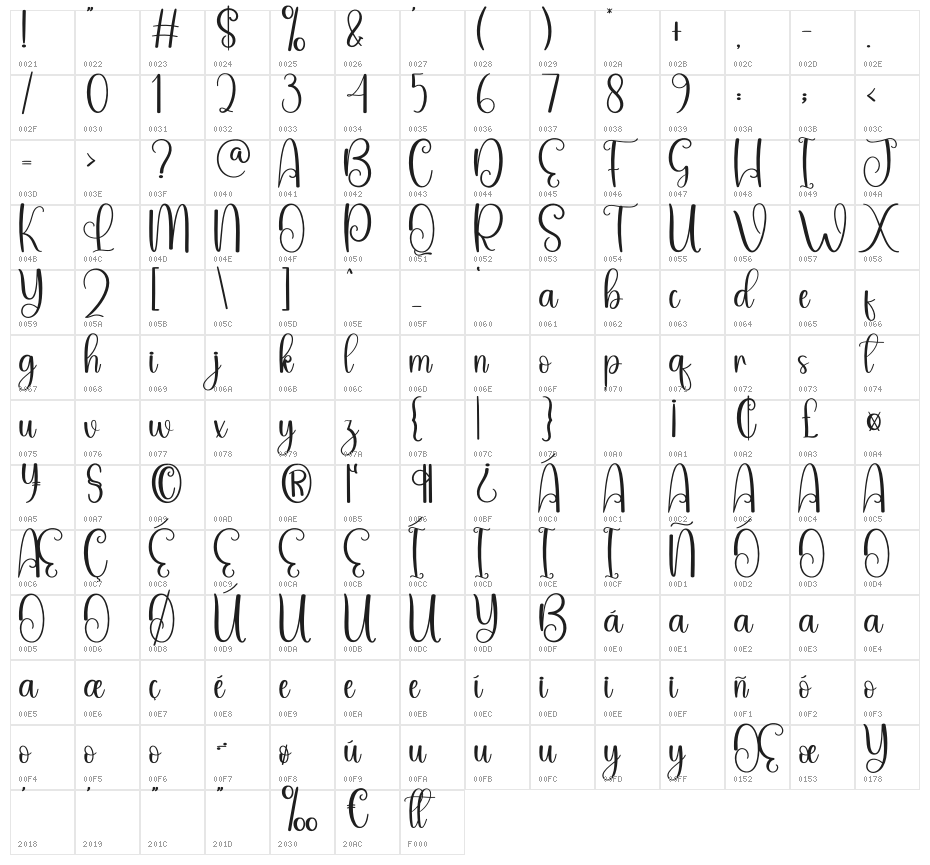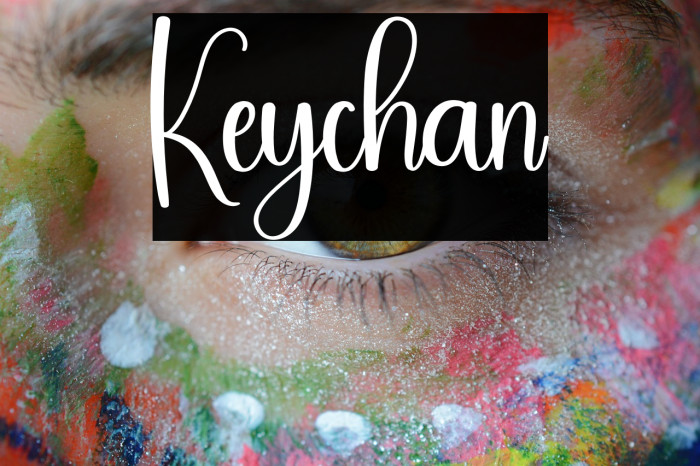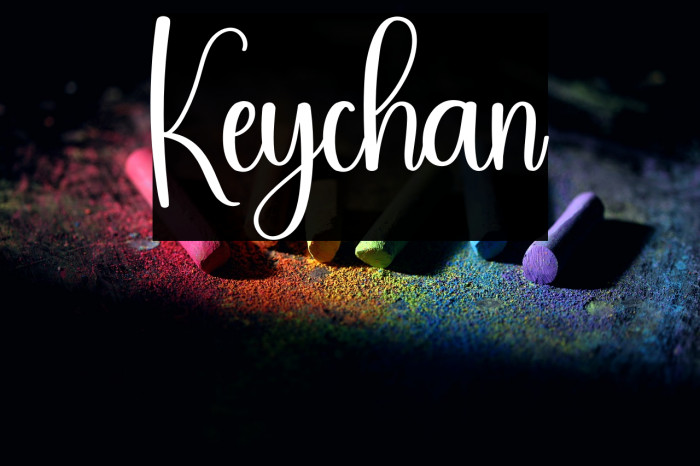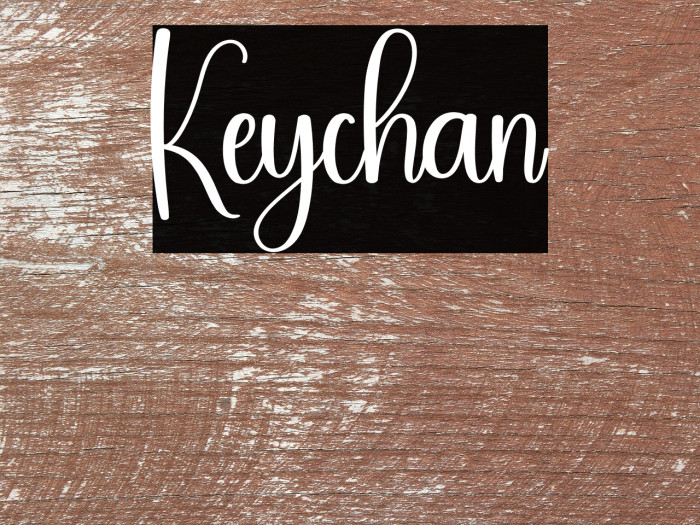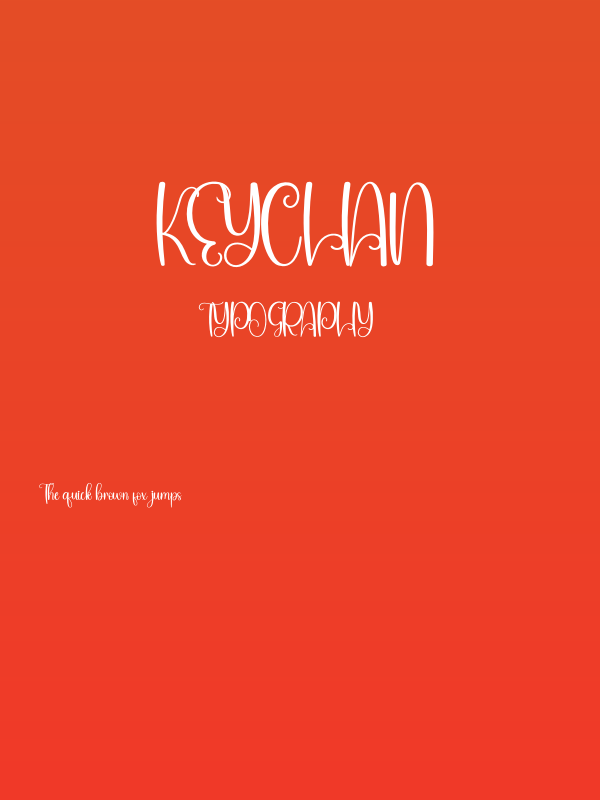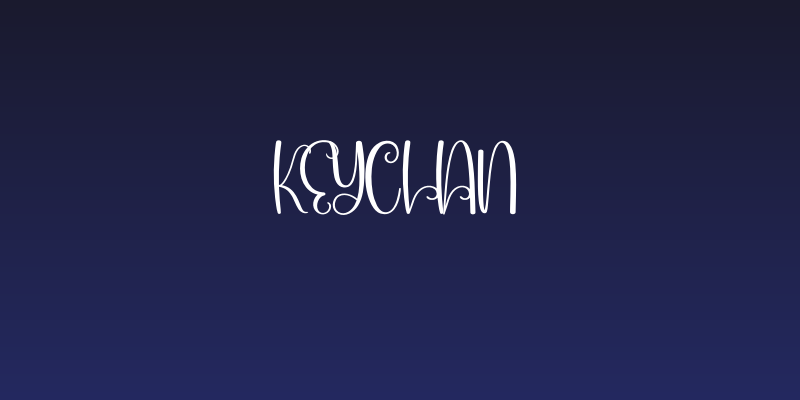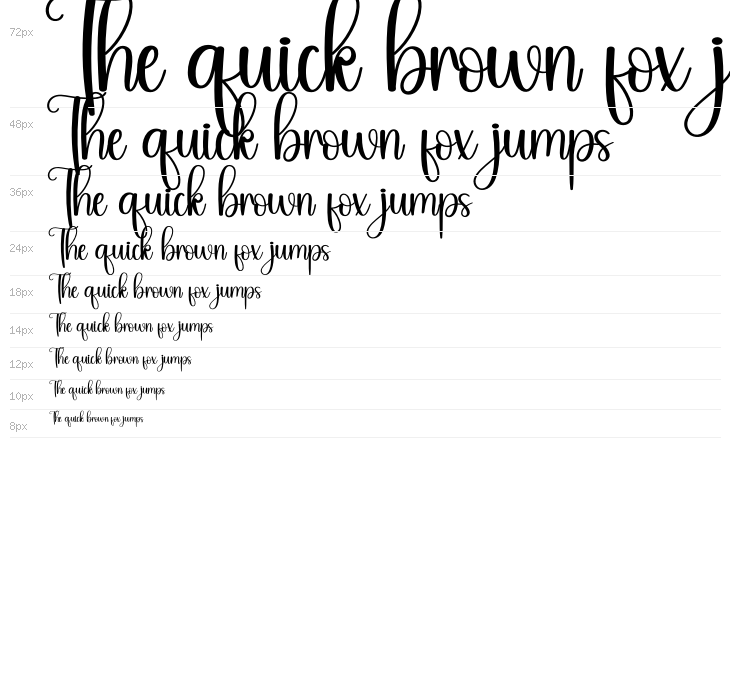
Keychan Font
Keychan Description
A decorative script font with elegant swirls and loops, featuring high contrast between thick and thin strokes.
| Proposed Projects | Invitations, greeting cards, branding. |